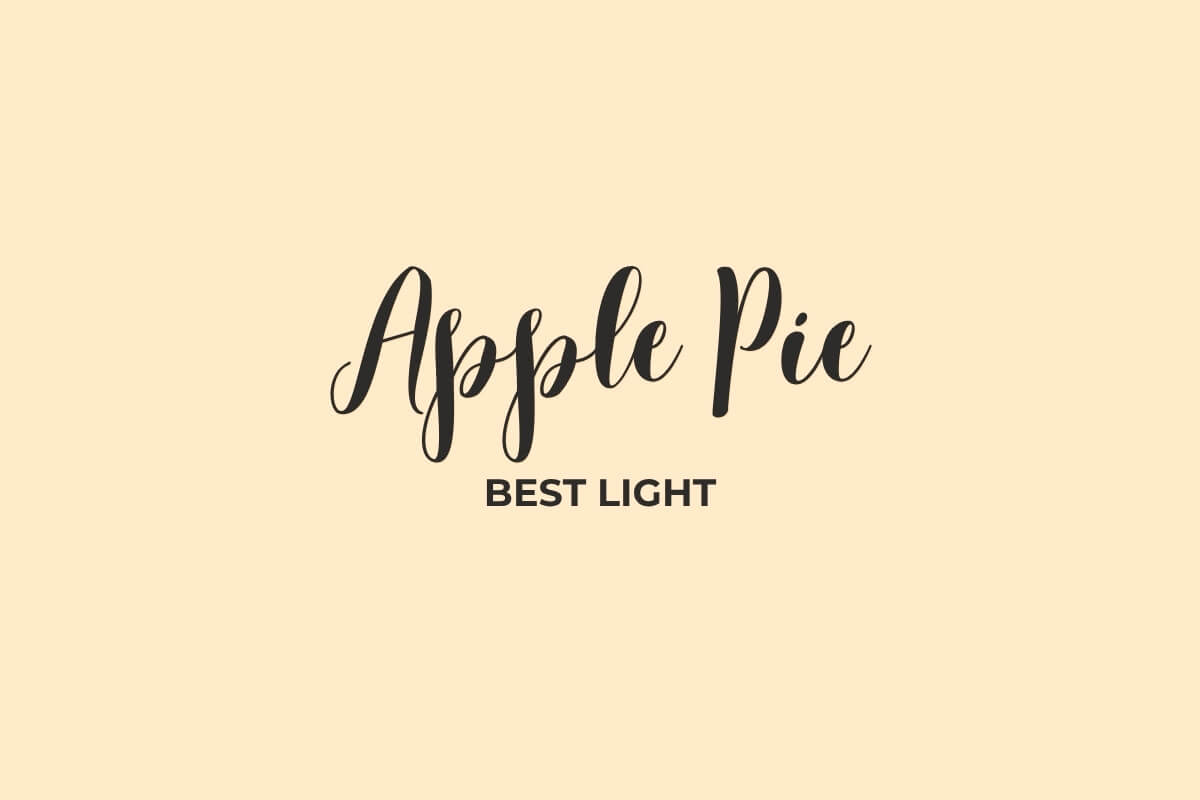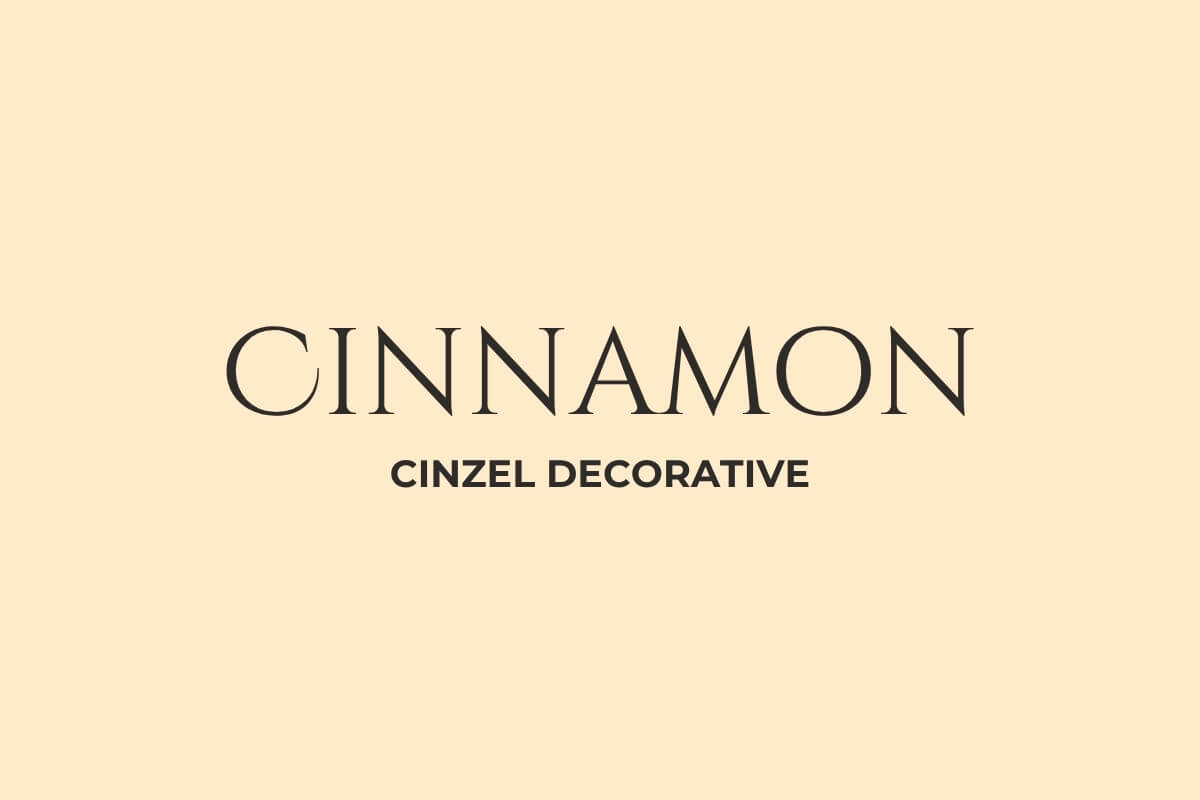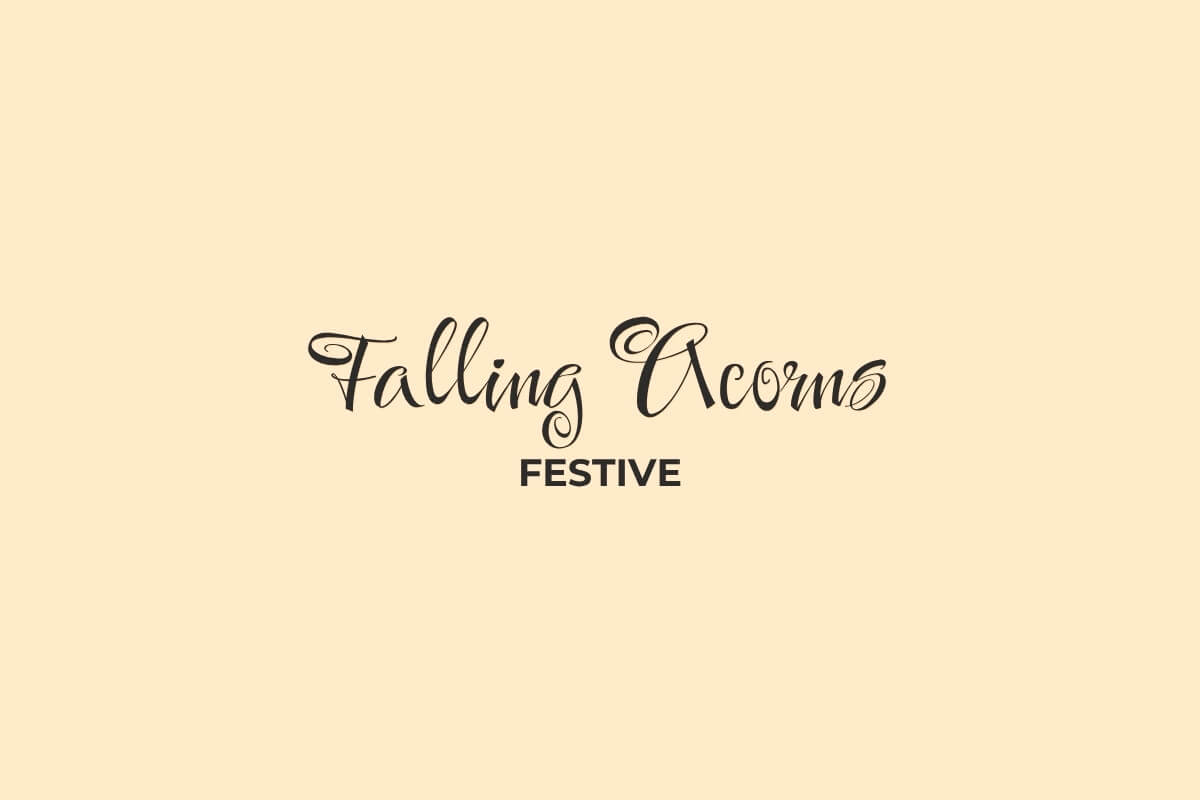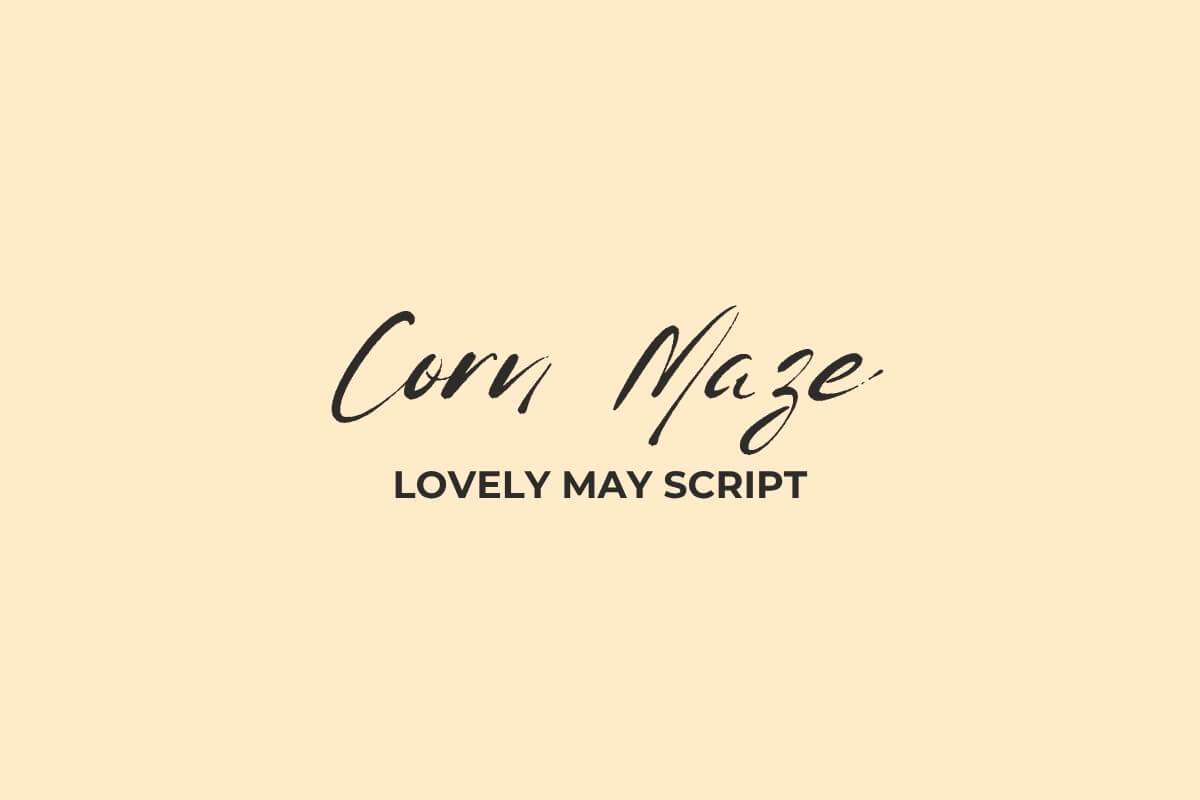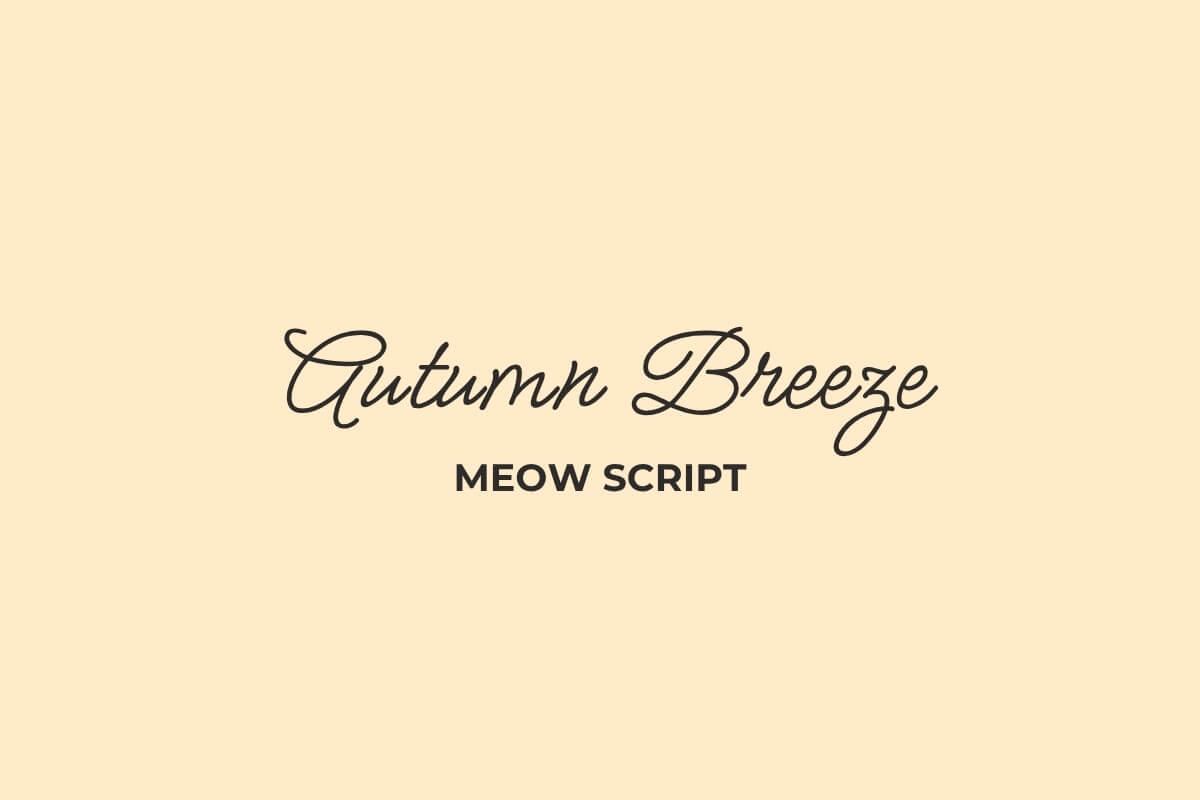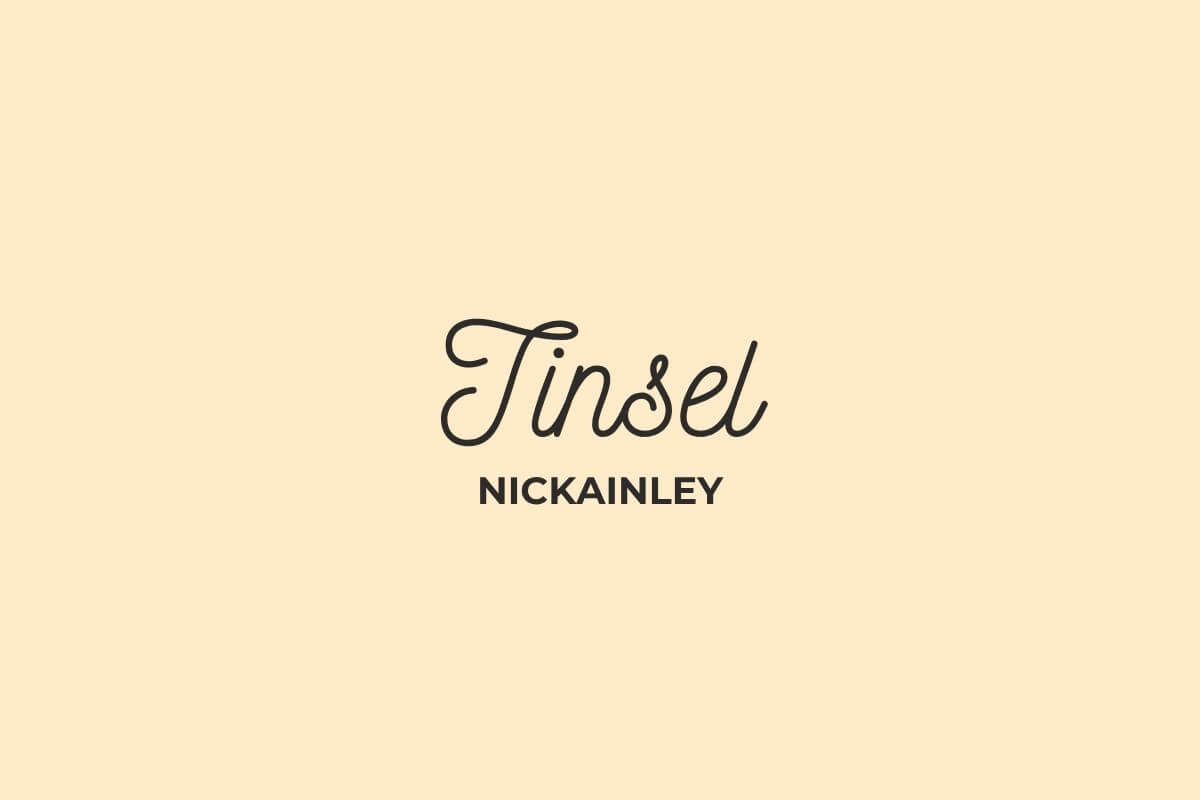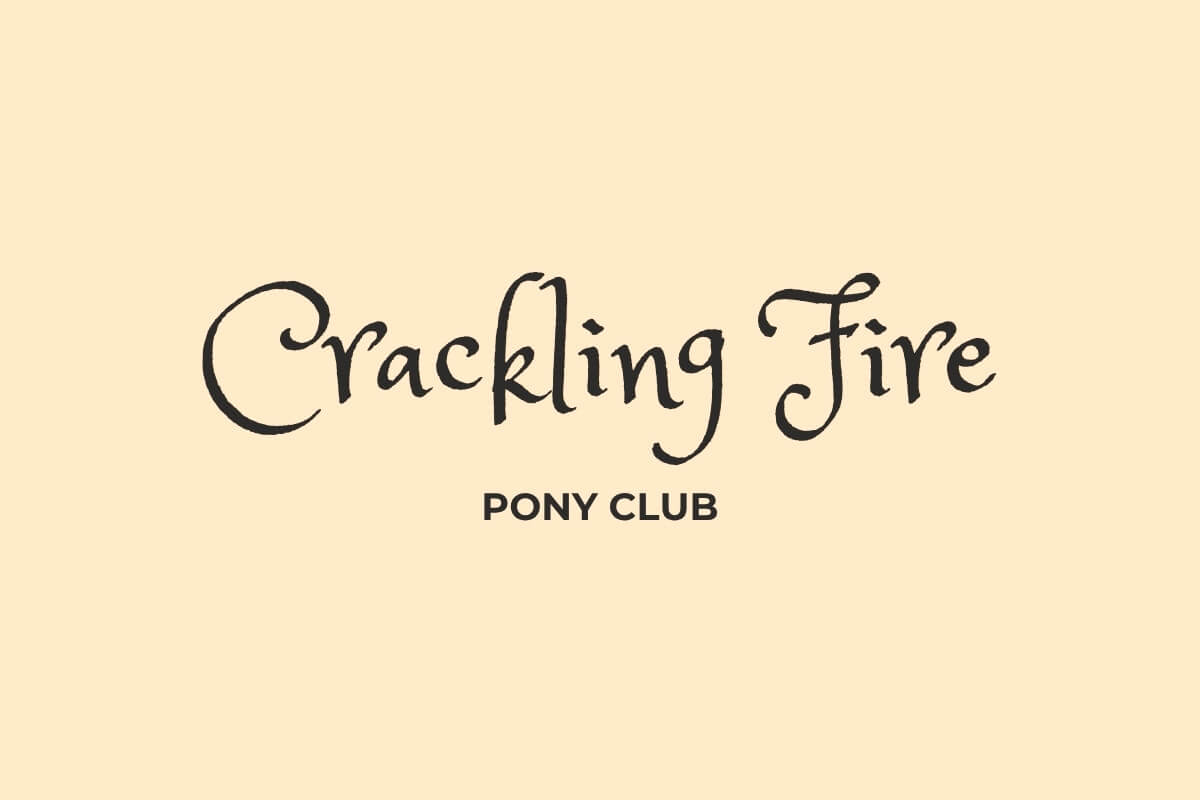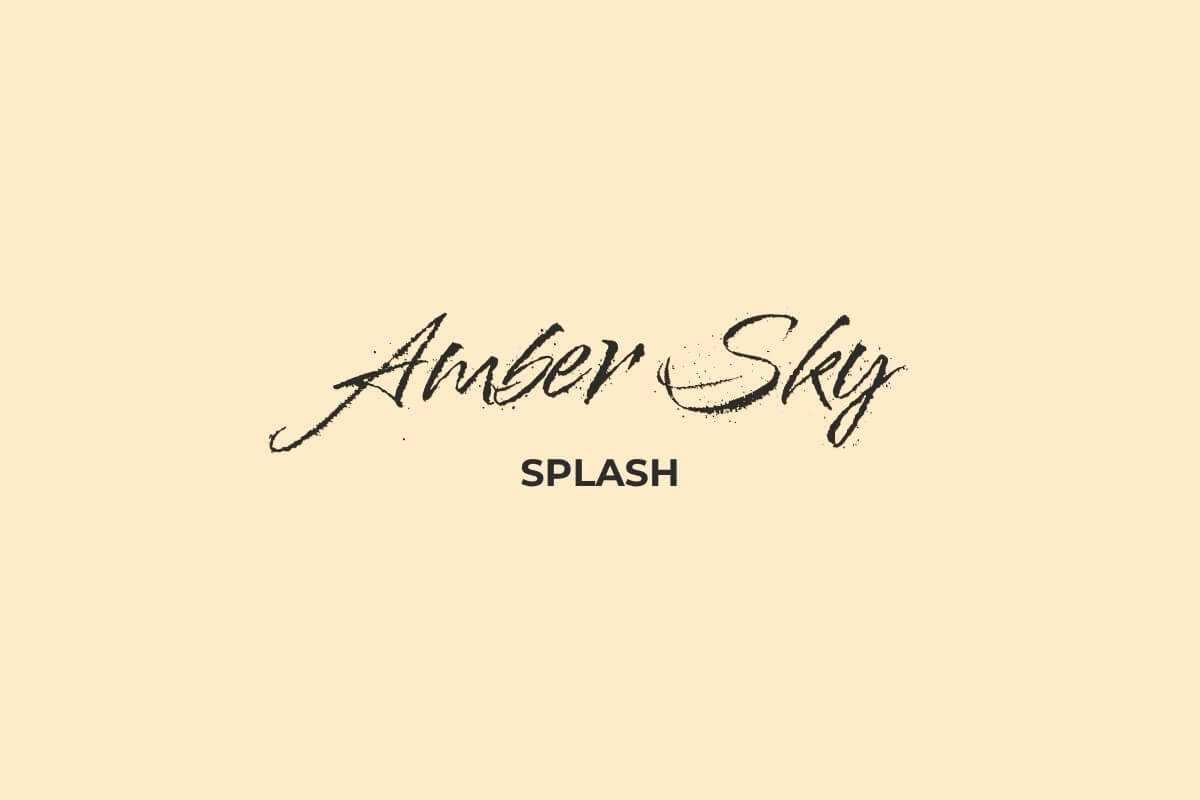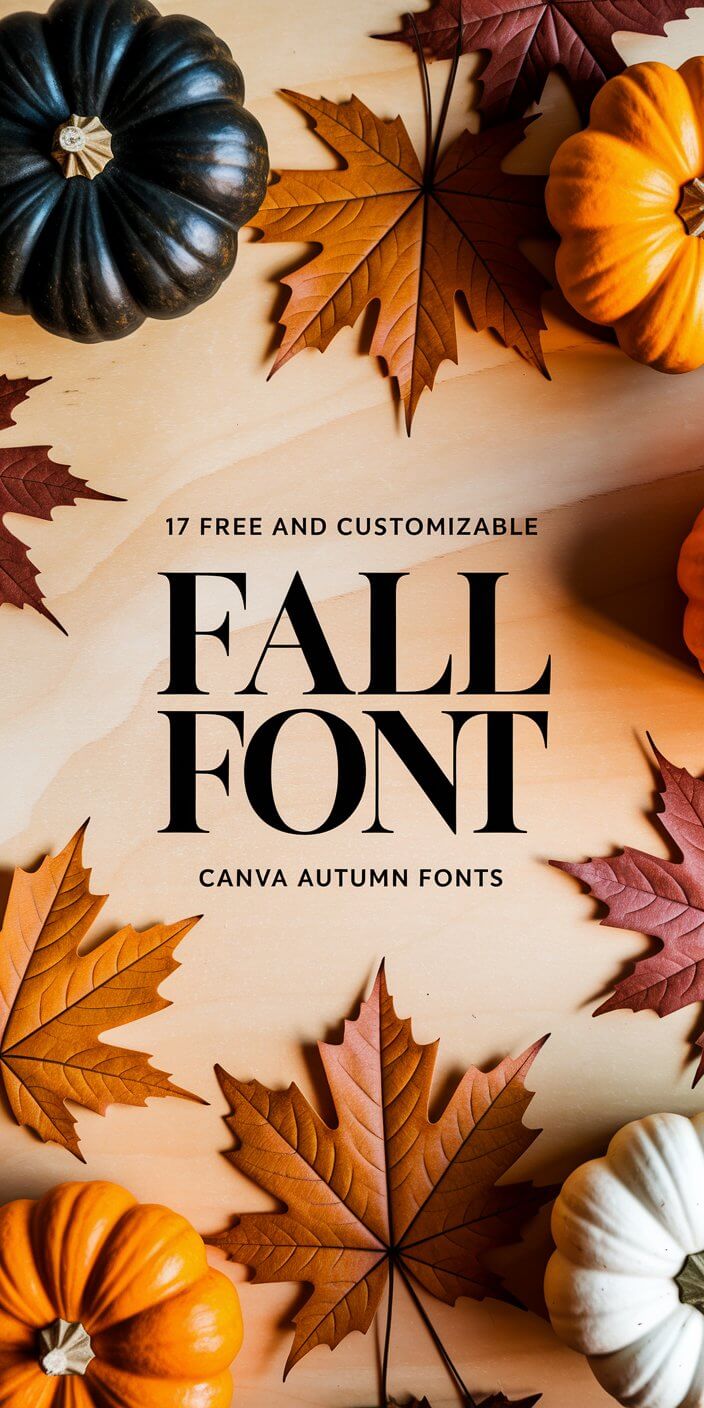
17 Free and Customizable Fall Font Design: Canva Autumn Fonts
If you’ve been hunting for the perfect cozy font to use in your fall projects, welcome, this post is for you.
Whether you’re designing a seasonal social media post, an autumn-themed invitation, need cricut fonts, or a digital product for your business and marketing content, the right font sets the tone.
I still remember one of my earliest fall design projects. It was for a cozy autumn promo I created for a client’s handmade candle line, think cinnamon spice, burnt orange tones, and yes, falling leaves everywhere.
I spent hours scrolling through fonts in Canva because everything I tried either looked too cold or too playful.
And just when I was about to give up and use plain old Glacial Indifference (which I do love, don’t get me wrong), I stumbled on a warm script style font that instantly made the design feel… right.
It was the missing detail that pulled the whole look together and made it feel seasonal without being cheesy.
That’s when I realized: fonts aren’t just about looks, they shape the entire mood of your content. Especially for fall-inspired designs, the right font adds that extra charm your post or graphic needs to stand out.
Explore Cozy Fall Fonts for Your Canva Project
1. Alice
A crisp serif font with timeless charm, Alice gives your fall or holiday designs a cozy, classic touch. Perfect for seasonal content, business graphics, or invitations you want to feel refined but still warm. This is the kind of font that quietly does its job beautifully.
2. Angelina
Angelina is a script font with personality, smooth, handwritten strokes that feel full of life. It’s one of those fonts for Canva that works so well for cozy autumn quotes, seasonal social posts, or anything needing a little extra charm. Ideal for fall-inspired designs with heart.
3. Best Light
Soft, swirly, and sweet, Best Light is your go-to if you want that handwritten, fall font aesthetic without going over the top. Think Thanksgiving graphics, digital invites, or DIY labels that look both polished and personal. It’s one of those fonts to use when you want warmth.
4. Birthstone Bounce
Birthstone Bounce gives you that perfect mix of elegance and playfulness. It’s a script style font that makes fall and winter projects feel festive without being cheesy. Works great for seasonal templates you can customize or cozy commercial use like labels, graphics, and handmade product packaging.
5. Cinzel Decorative
Birthstone Bounce gives you that perfect mix of elegance and playfulness. It’s a script style font that makes fall and winter projects feel festive without being cheesy. Works great for seasonal templates you can customize or cozy commercial use like labels, graphics, and handmade product packaging.
6. Comforter Brush
This one’s for the bold fall lovers. Comforter Brush has that dry brush texture that screams DIY and cozy charm. It’s a display font perfect for eye-catching seasonal graphics, fall marketing posts, or even Cricut fonts for handmade crafts. Rustic, stylish, and very “pumpkin everything.”
7. Festive
Falling Acorns is fun and fancy, with decorative script letters that add whimsy and detail to your seasonal designs. Ideal for digital invites, commercial tags, or fall templates for Canva. This one leans festive (hence the name), but still keeps things cute and creative.
8. Fineday One
Fineday One is a rounded script that’s clean, cozy, and super easy to read. If you’re creating fall content that needs a soft, friendly vibe, this font is perfect. Think of it for blog headers, email graphics, or seasonal branding where approachability matters.
9. Hangyaboly
Hangyaboly’s “Nutmeg” font is playful and lighthearted with a quirky handwritten feel. If you want a fall font that doesn’t take itself too seriously but still fits your aesthetic, this one’s great for cozy DIY projects, labels, or casual Canva graphics for seasonal content.
10. Jonathan
Jonathan is that loose, stylish handwriting font that feels effortlessly natural. It’s the kind of font that works great for fall-inspired quotes, commercial use in design prints, or just giving your post a bit of handwritten texture. Simple, creative, and looks amazing on Canva.
11. Londrina Sketch
Londrina Sketch brings a playful, hand-drawn look that feels straight out of a farmhouse sign. I’ve used it for fall-themed Canva templates and rustic DIY projects, it gives your seasonal graphics a casual, creative edge. Great as a display font when you want that cozy, textured feel.
12. Lovely May Script
Lovely May Script feels like it was written on a breezy fall afternoon. This script style font is loose, casual, and full of charm. Perfect for digital content or seasonal designs where you want your text to look handwritten, but still clean and stylish. I use this a lot in cozy quotes.
13. Meow Script
Meow Script is classic and soft, with graceful letterforms that feel both vintage and modern. It’s the kind of fall font that works beautifully in invitations, product packaging, or even seasonal social media posts. One of those fonts for Canva I go back to when I want warmth and polish.